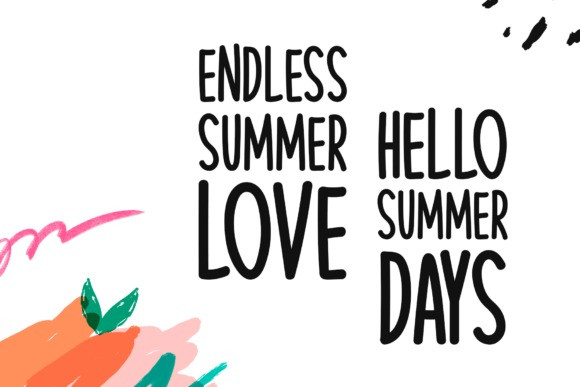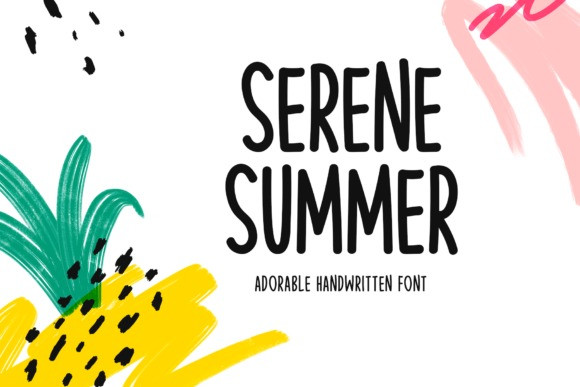
Serene Summer Font
Serene Summer Font is a beautifully crafted handwritten typeface designed to elevate both print and digital creations. Ideal for branding, apparel, promotional materials, and web design, it offers a distinctive elegance that enhances every project.